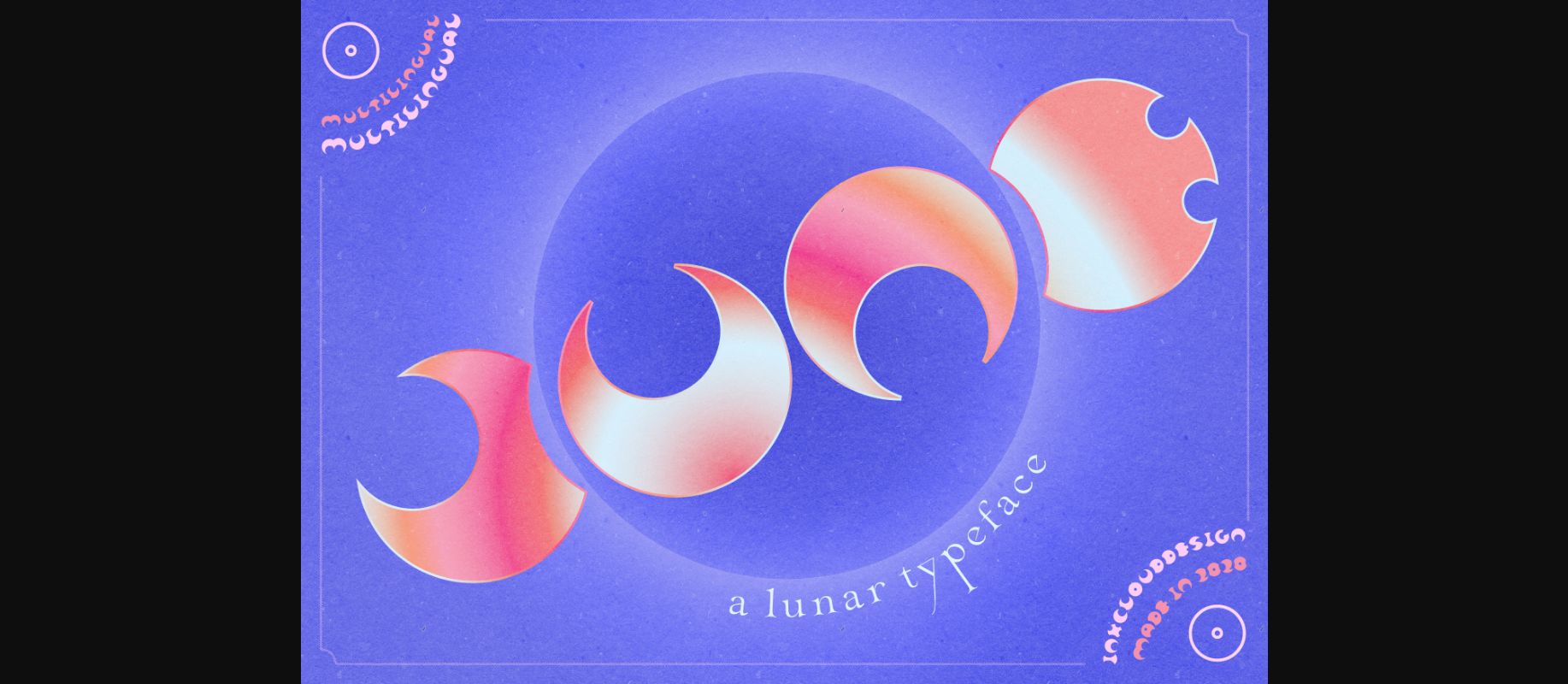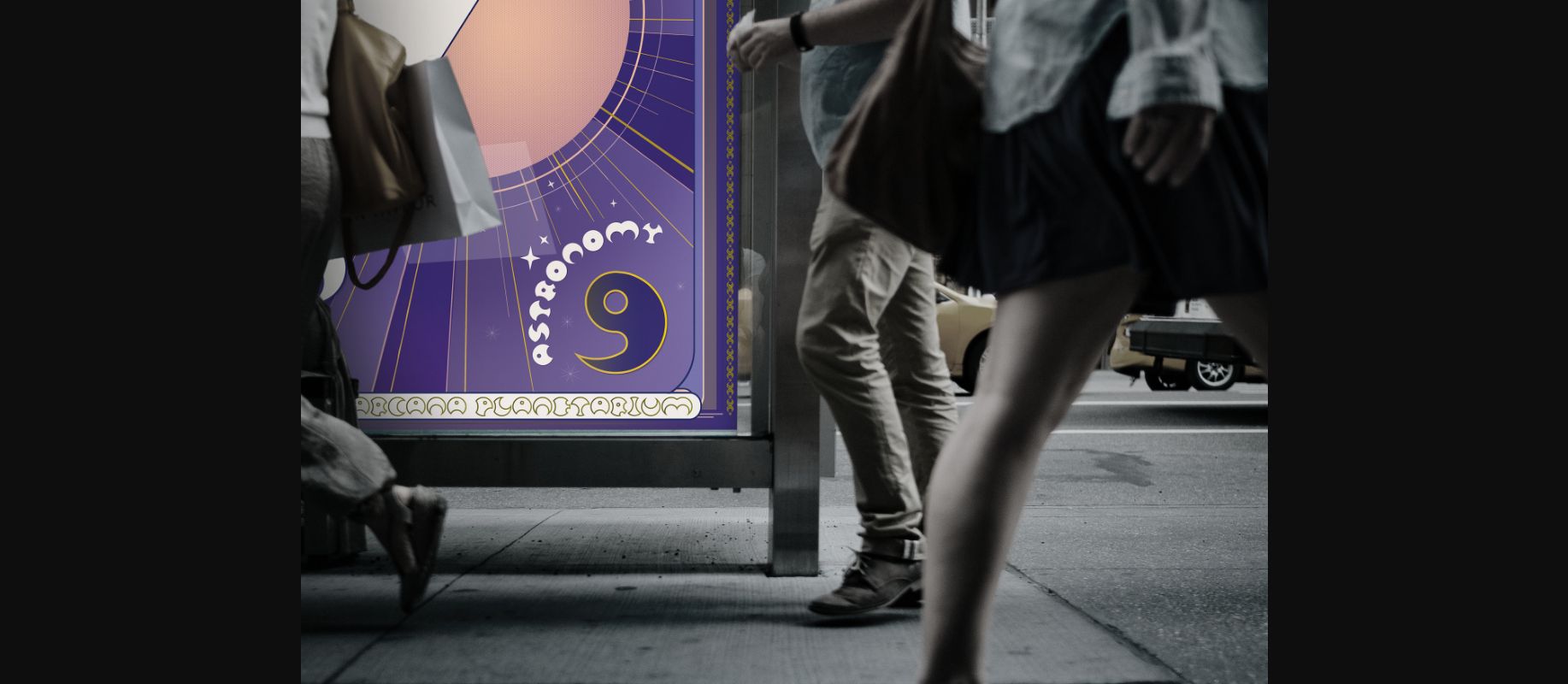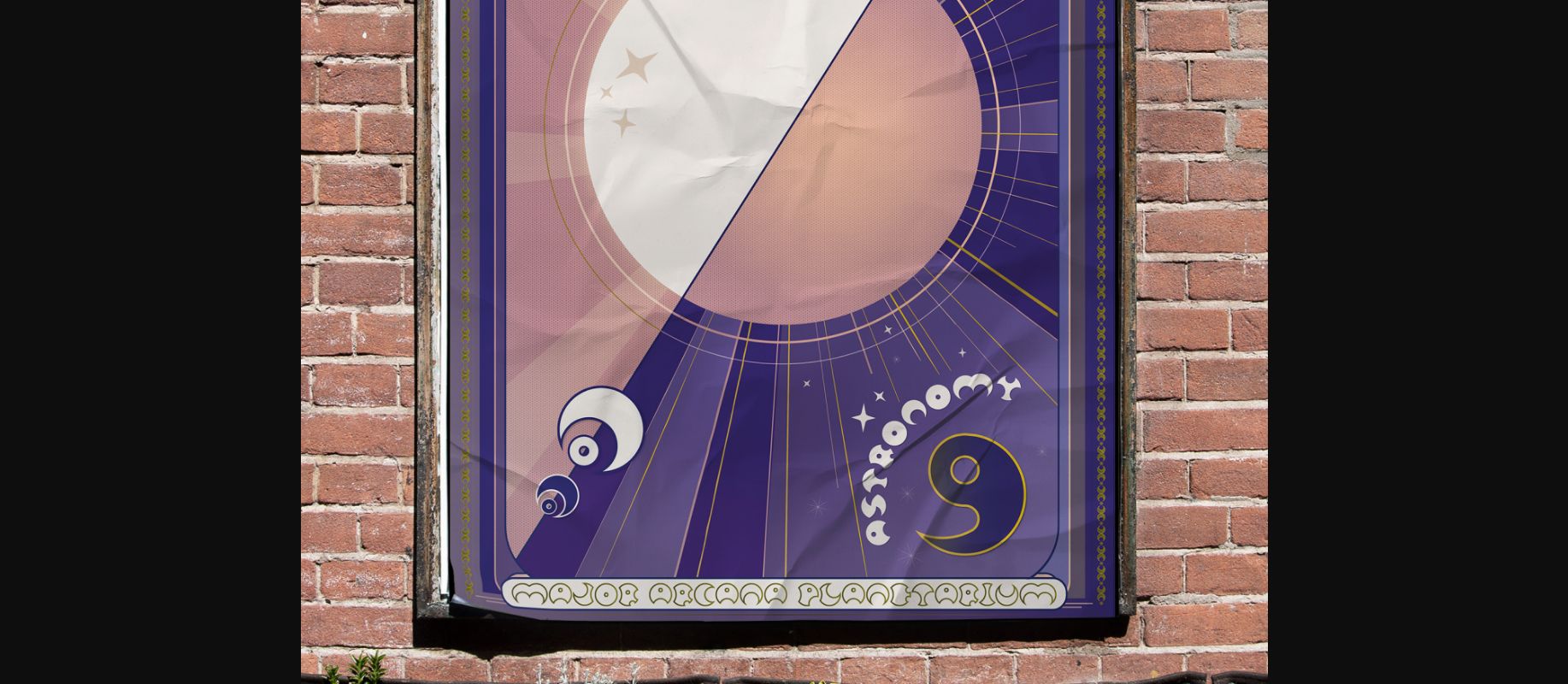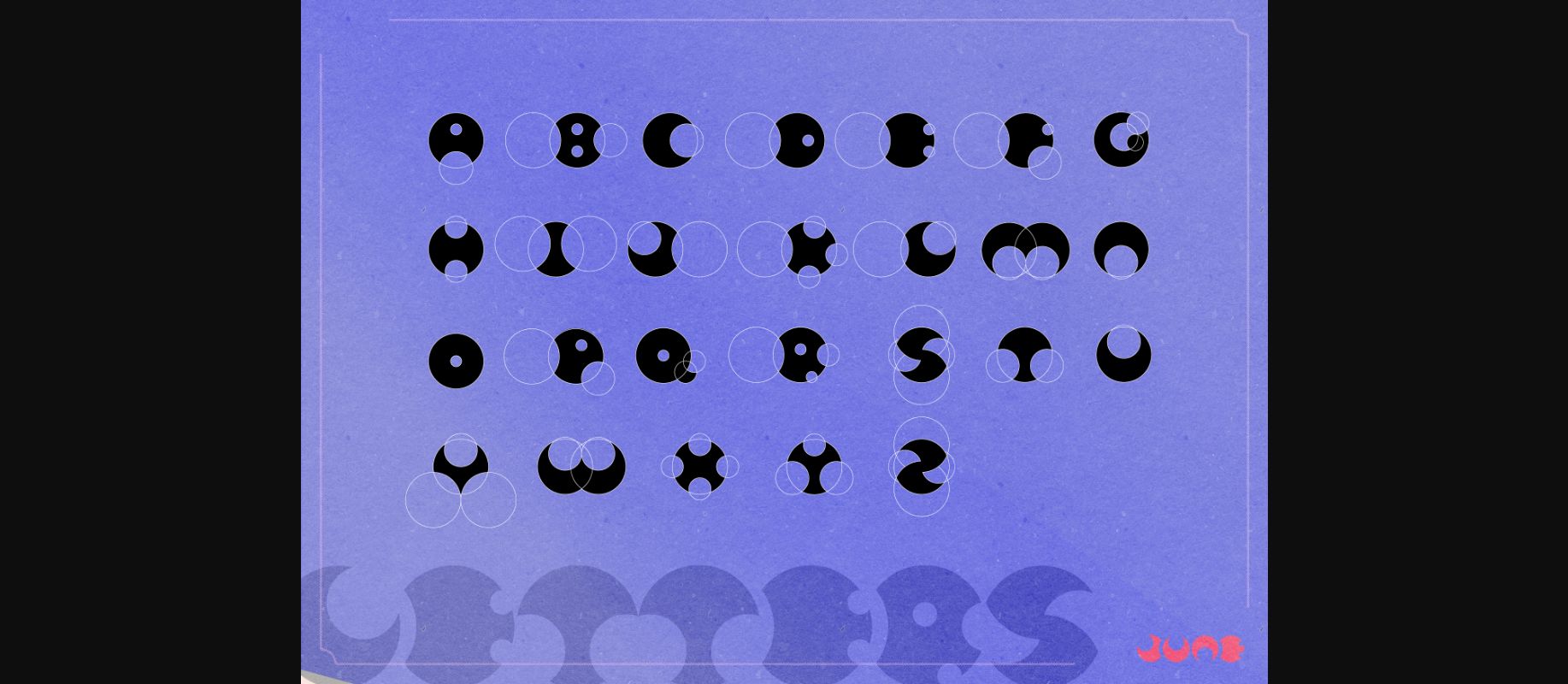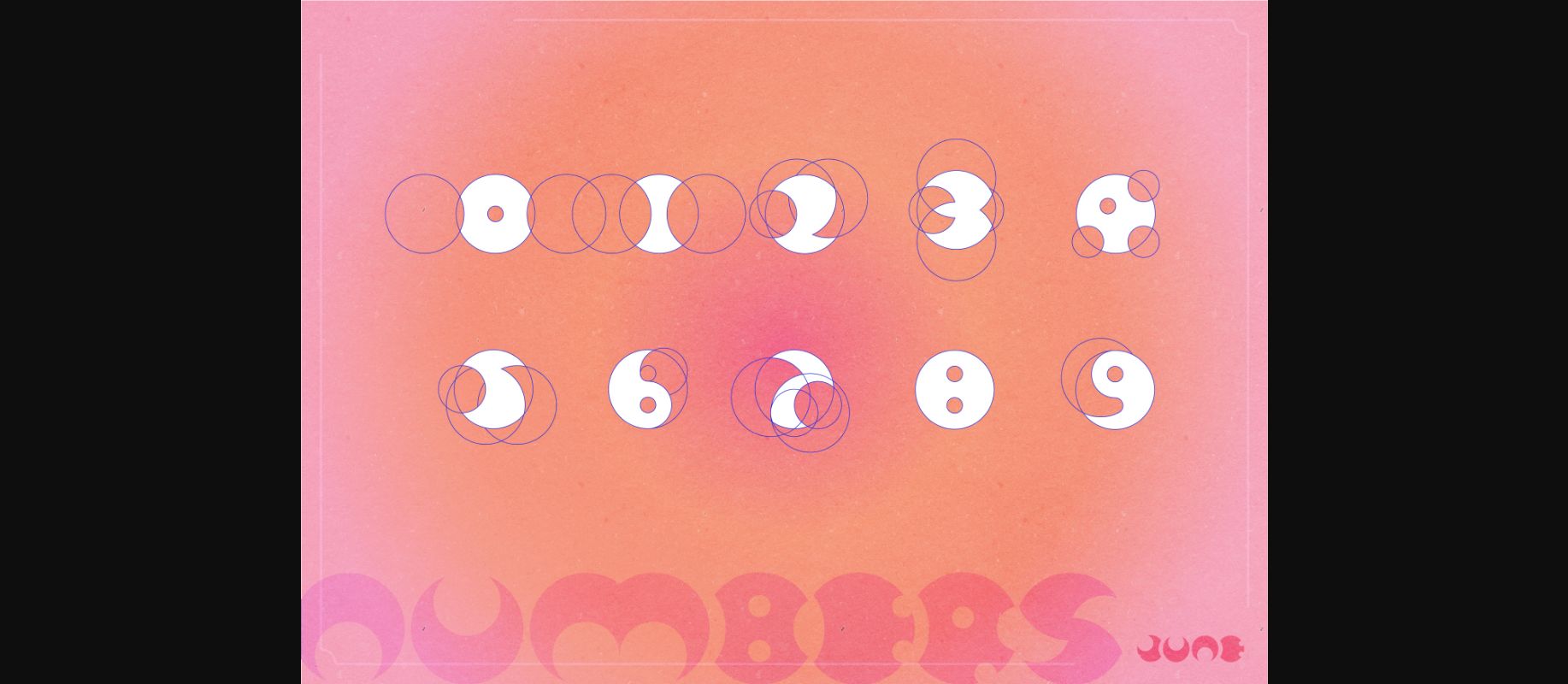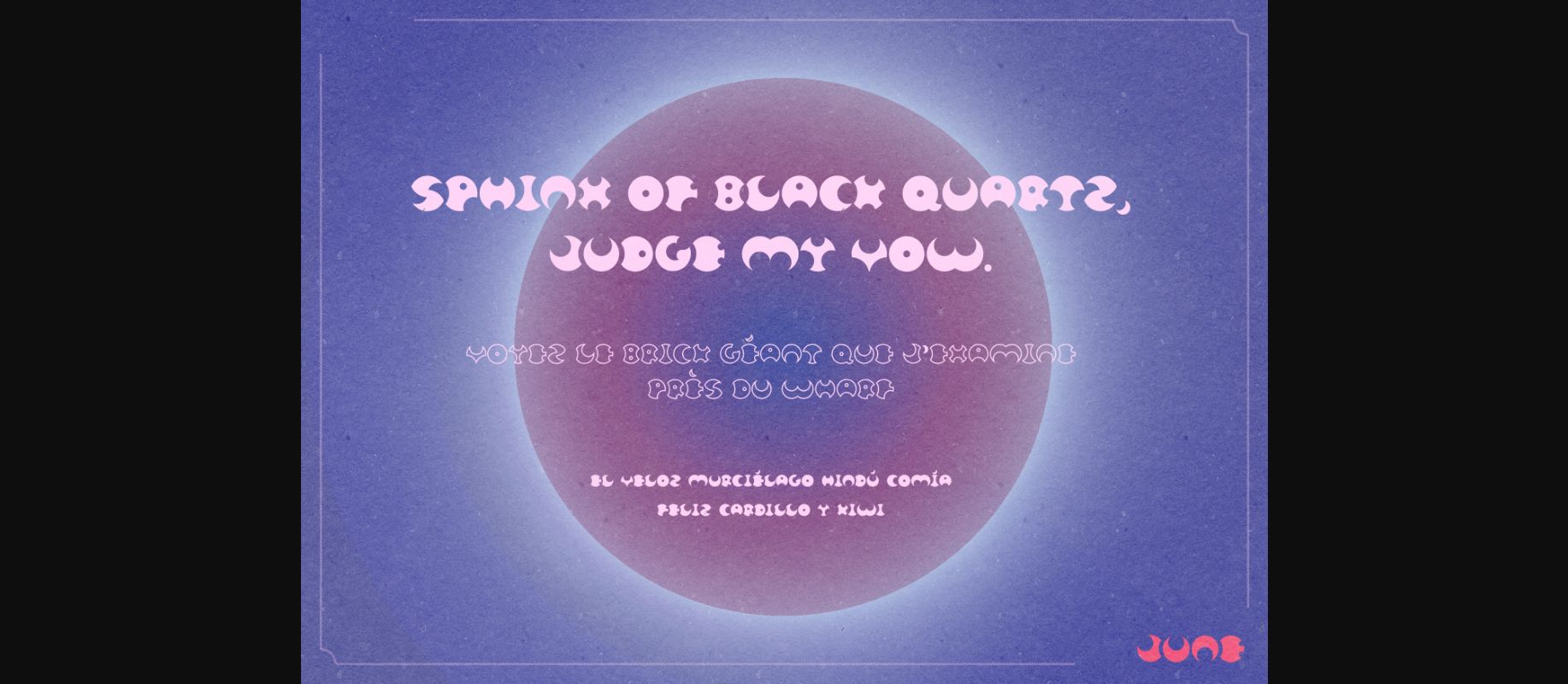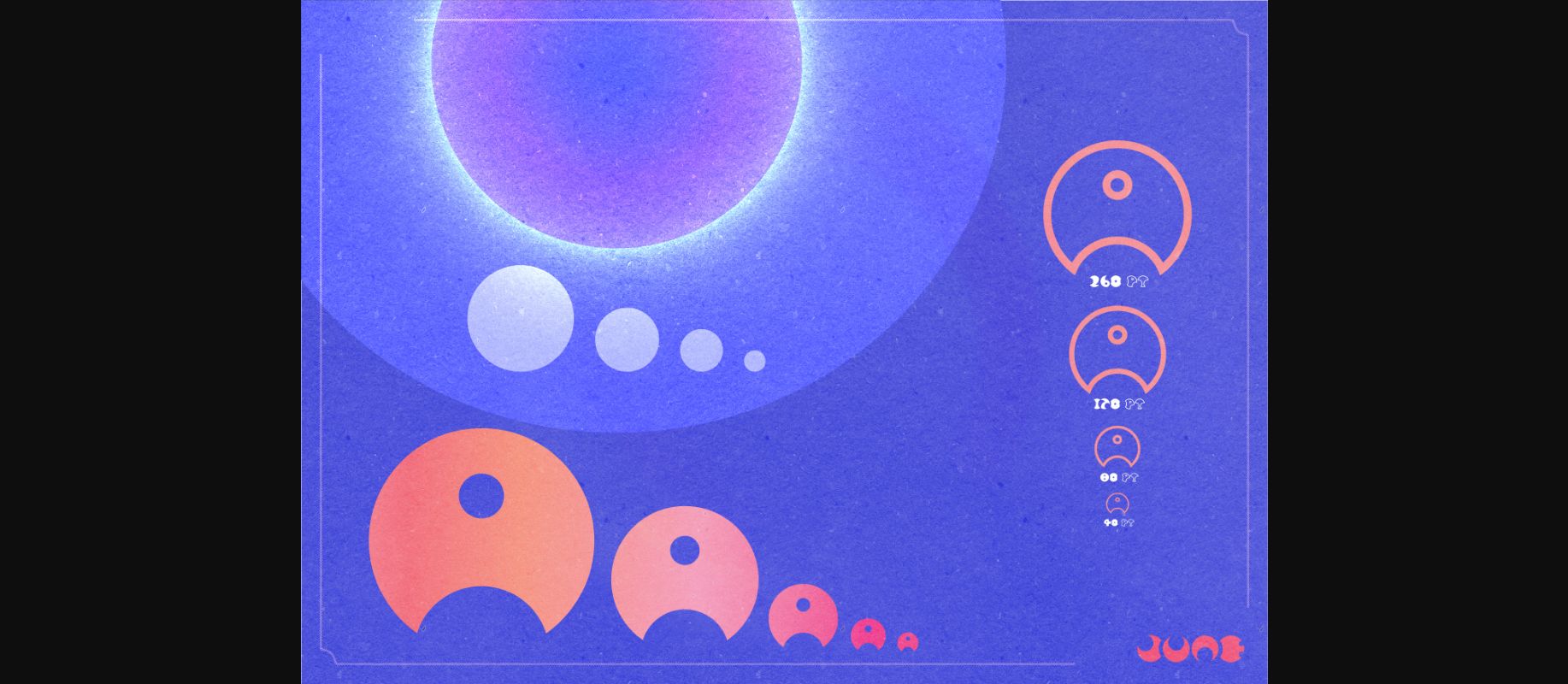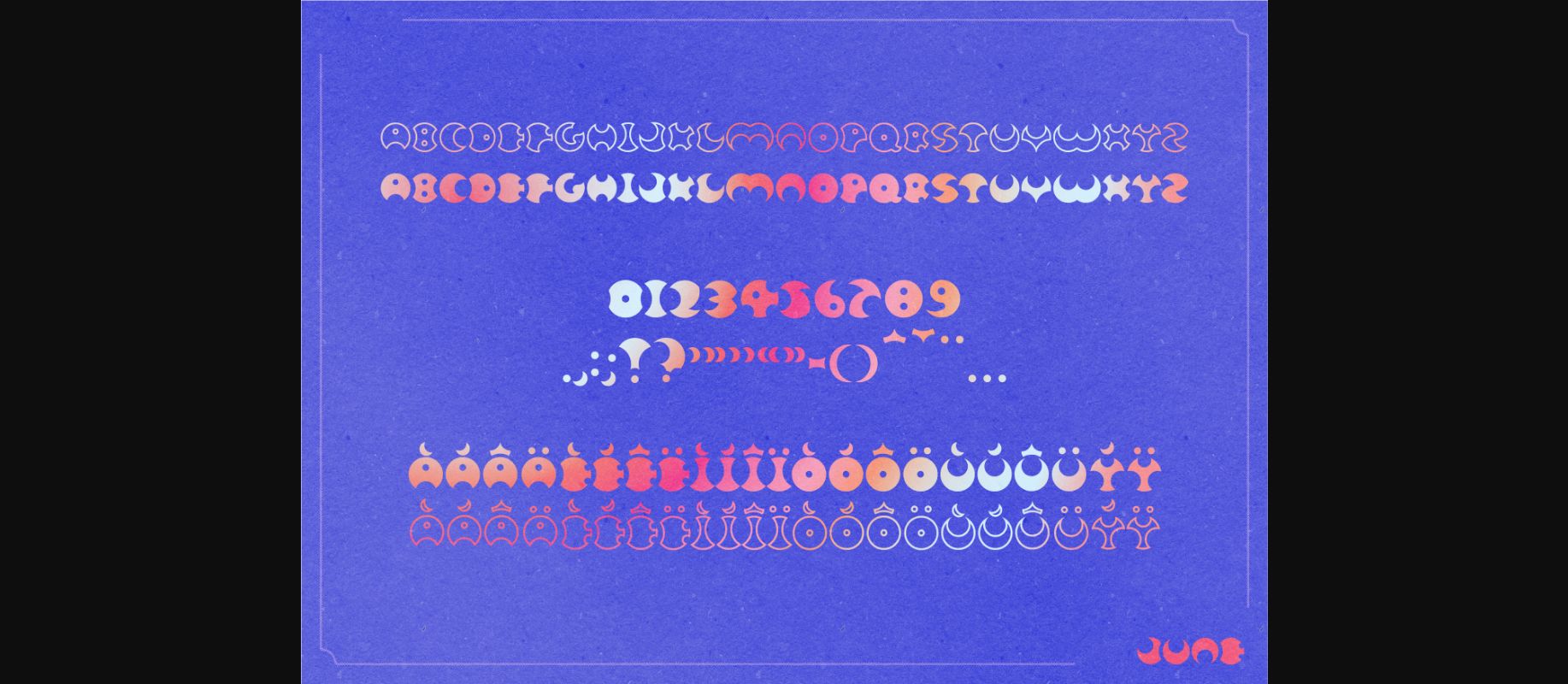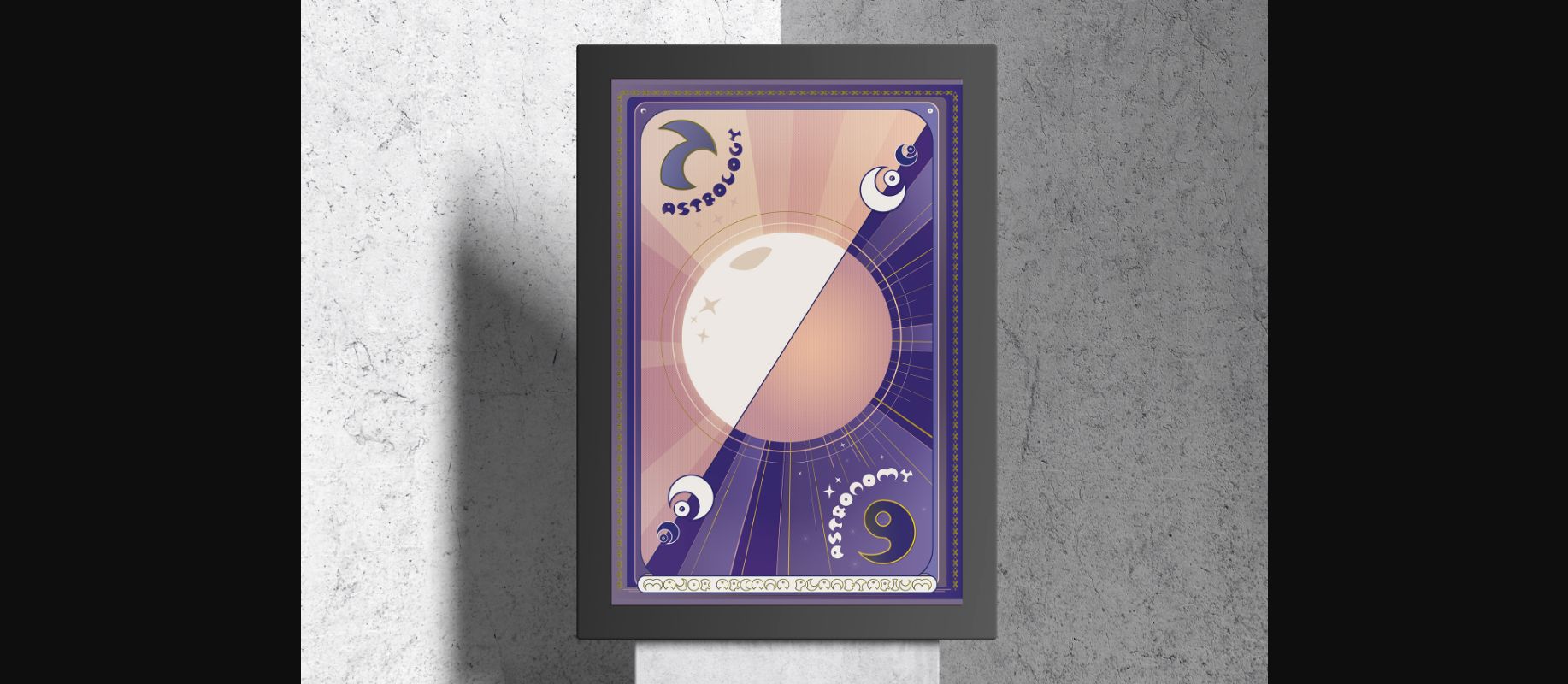
About June Font
June is a lunar themed decorative font. Each letter consists of simple circles. Its round characters bring warmth and personality to your designs!